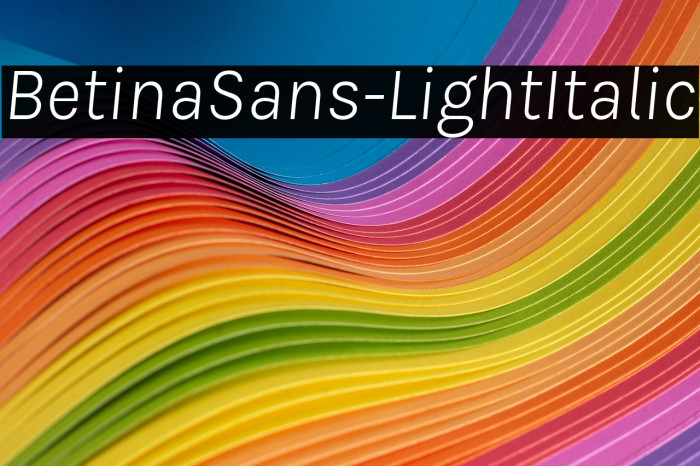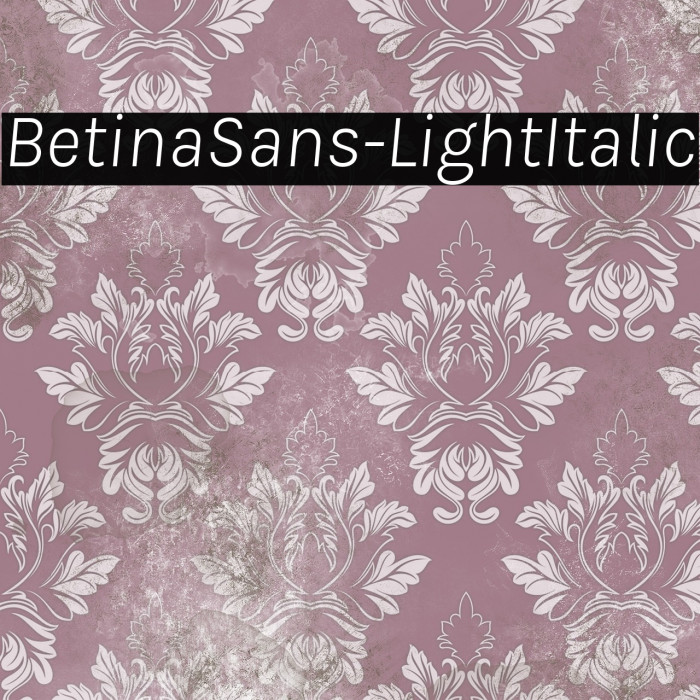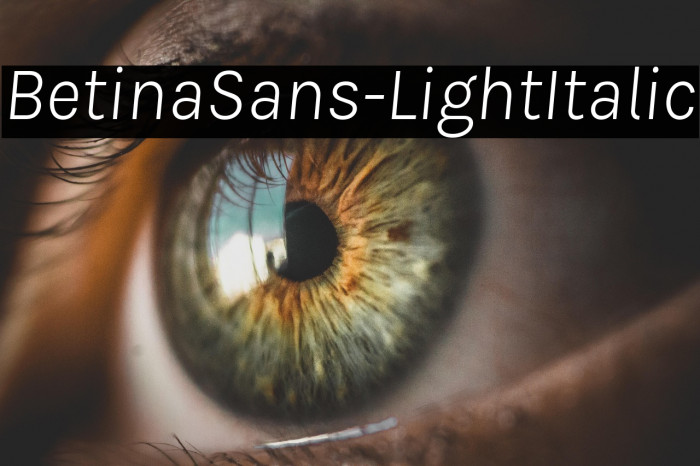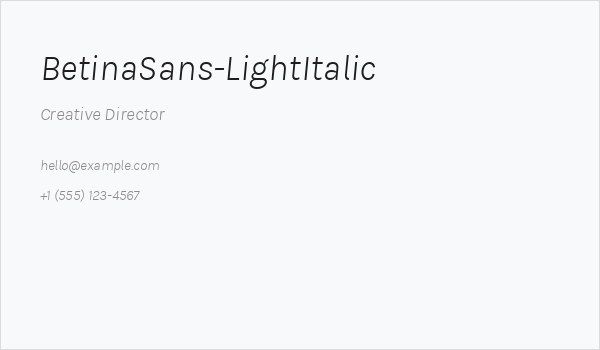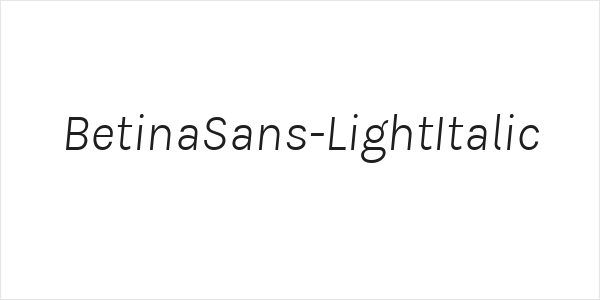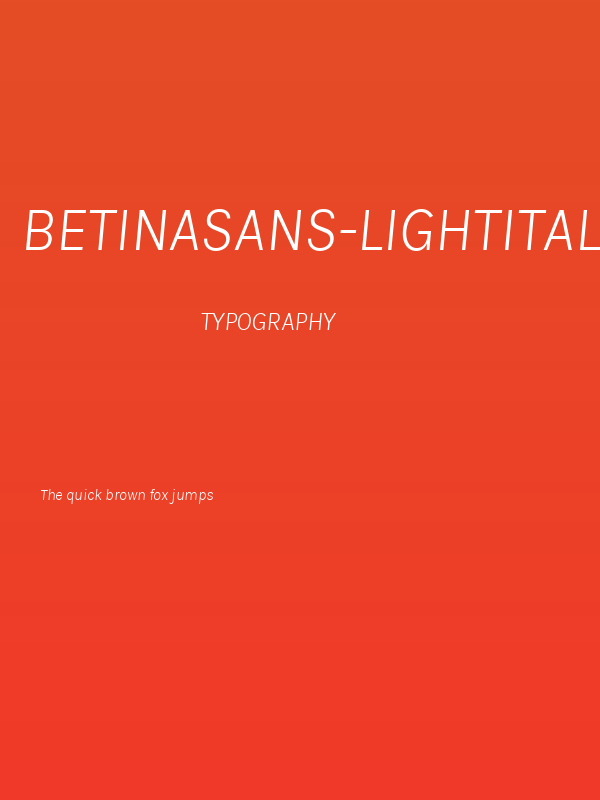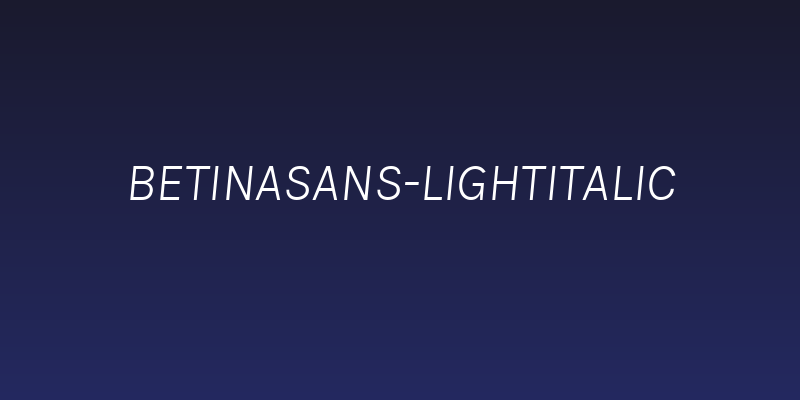
BetinaSans-LightItalic Font
BetinaSans-LightItalic Description
This font presents a clean and modern sans-serif style with a light weight and italic slant. The characters are elegantly crafted with smooth curves and a slight forward tilt, giving it a dynamic yet sophisticated appearance. The uppercase letters are uniform in height, while the lowercase letters maintain a consistent baseline with subtle variations in ascenders and descenders. The numerals are clear and legible, matching the overall aesthetic of the alphabet. Special characters are well-integrated, maintaining the font's sleek and contemporary look. The spacing between characters is balanced, ensuring readability and a harmonious flow.
Proposed ProjectsIdeal for modern branding, editorial design, digital interfaces, and minimalist posters.